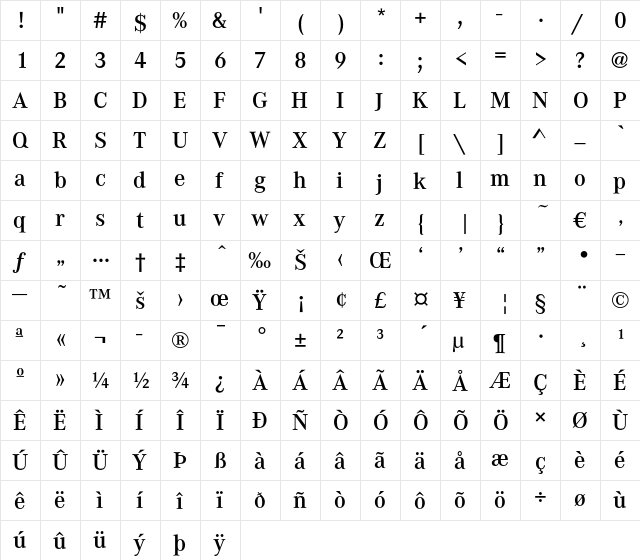
Corporate A Demi
Design Context for Corporate A Typeface
Corporate A takes a measured approach to typography — its balanced proportions and neutral character make it a reliable workhorse for both digital and print work.